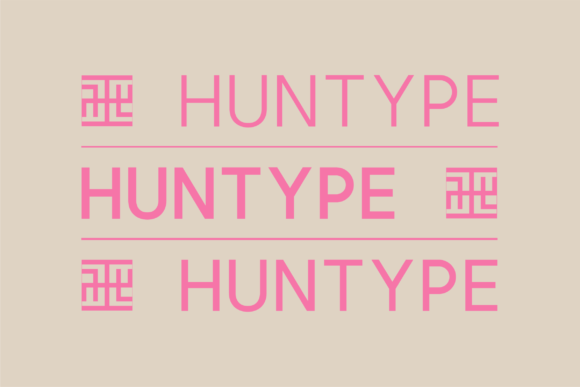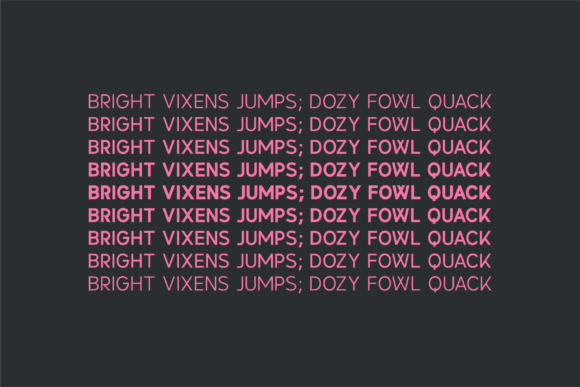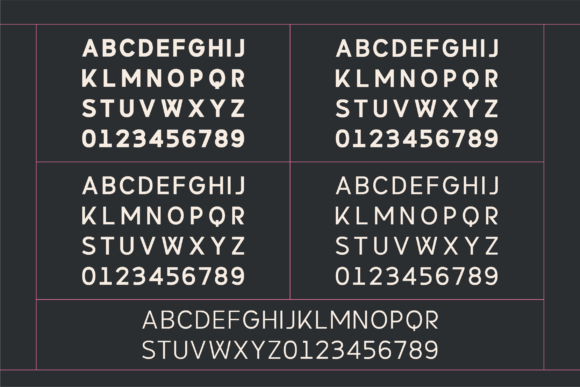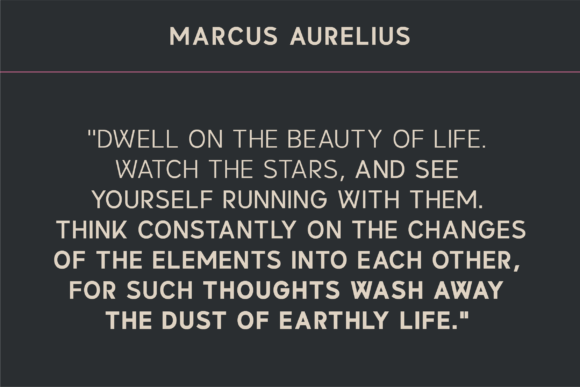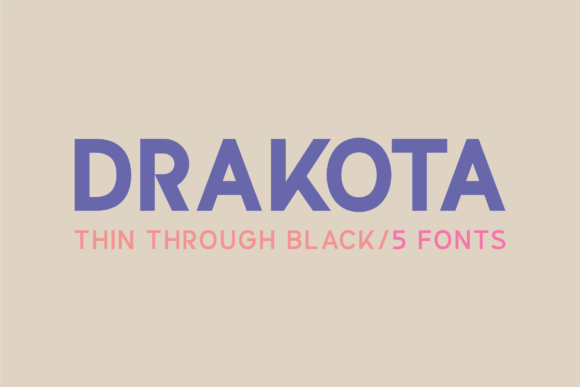
Introducing Drakota Family: Elevate Your Design Projects with Modern Elegance
In the world of design, typography plays a crucial role in conveying messages, evoking emotions, and creating lasting impressions. For designers and crafters seeking a font that embodies modern elegance and versatility, look no further than the Drakota Family. This comprehensive font family is meticulously crafted to redefine your design projects, offering a range of applications from branding and headlines to digital and print media.
The Drakota Family: A Spectrum of Elegance and Versatility
The Drakota Family is not just a font; it’s a collection of five weights, ranging from Thin to Black, designed to cater to various design needs. This versatility is a game-changer for designers who require a font that can adapt to different contexts without compromising on style or readability. Whether you’re working on a minimalist project that demands subtlety or a bold campaign that requires a statement, the Drakota Family has got you covered.
Contemporary Style for the Modern Designer
Drakota’s contemporary style is one of its standout features. In an era where design trends are constantly evolving, having a font that feels fresh and modern is indispensable. The Drakota Family’s sleek lines, balanced proportions, and meticulous attention to detail make it the perfect choice for designers looking to infuse their projects with a touch of sophistication. Its clean and elegant appearance ensures that your designs not only look professional but also engaging and aesthetically pleasing.
Perfect for Branding, Headlines, and More
Branding and headlines are often the first points of contact between a brand and its audience, making them critical elements in the branding strategy. The Drakota Family, with its modern elegance and high readability, is perfectly suited for these applications. Its range of weights allows designers to use a lighter weight for body text and a heavier weight for headlines, creating a cohesive and impactful visual identity. Moreover, the font’s versatility extends its use to a wide array of projects, including digital content, print materials, packaging, and more.
Readability Without Compromise
One of the challenges designers often face is finding a font that combines elegance with readability. The Drakota Family excels in this area, offering a sophisticated look without sacrificing legibility. This balance is crucial for ensuring that your message is conveyed effectively, whether in a digital format or print. The font’s clear and distinct letterforms make it easy to read, even at smaller sizes, making it an excellent choice for body text as well as headlines.
Elevate Your Designs Today
Incorporating the Drakota Family into your design projects is a straightforward process that can significantly elevate the quality and impact of your work. With its modern elegance, versatility, and high readability, Drakota offers everything designers need to create stunning and effective designs. Whether you’re a professional designer working on a client’s project or a DIY craftsperson creating materials for personal use, the Drakota Family is a valuable addition to your typographic arsenal.
The Drakota Family is more than just a font; it’s a design solution that offers a perfect blend of modern elegance, versatility, and readability. Its range of weights, contemporary style, and meticulous craftsmanship make it an ideal choice for a wide range of design applications. By incorporating the Drakota Family into your projects, you can ensure that your designs are not only visually appealing but also effective in communicating your message. Elevate your designs today with the Drakota Family and experience the difference it can make in your work.